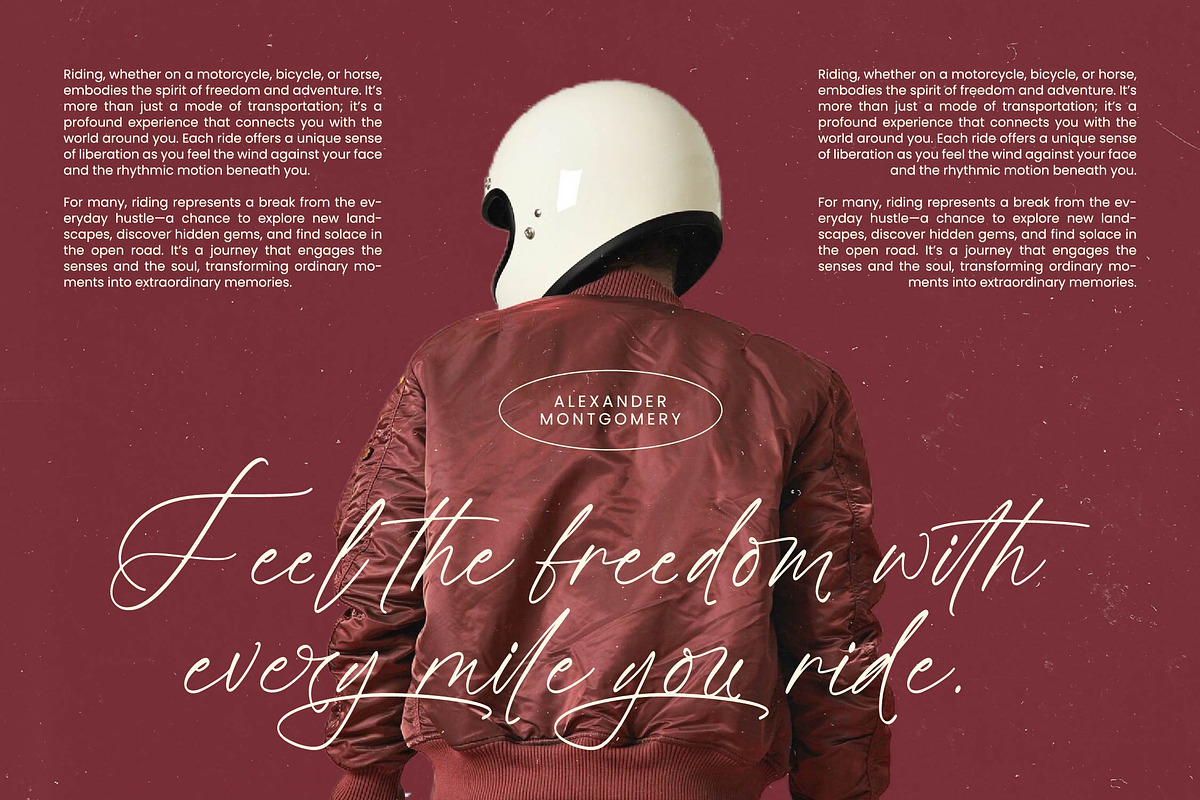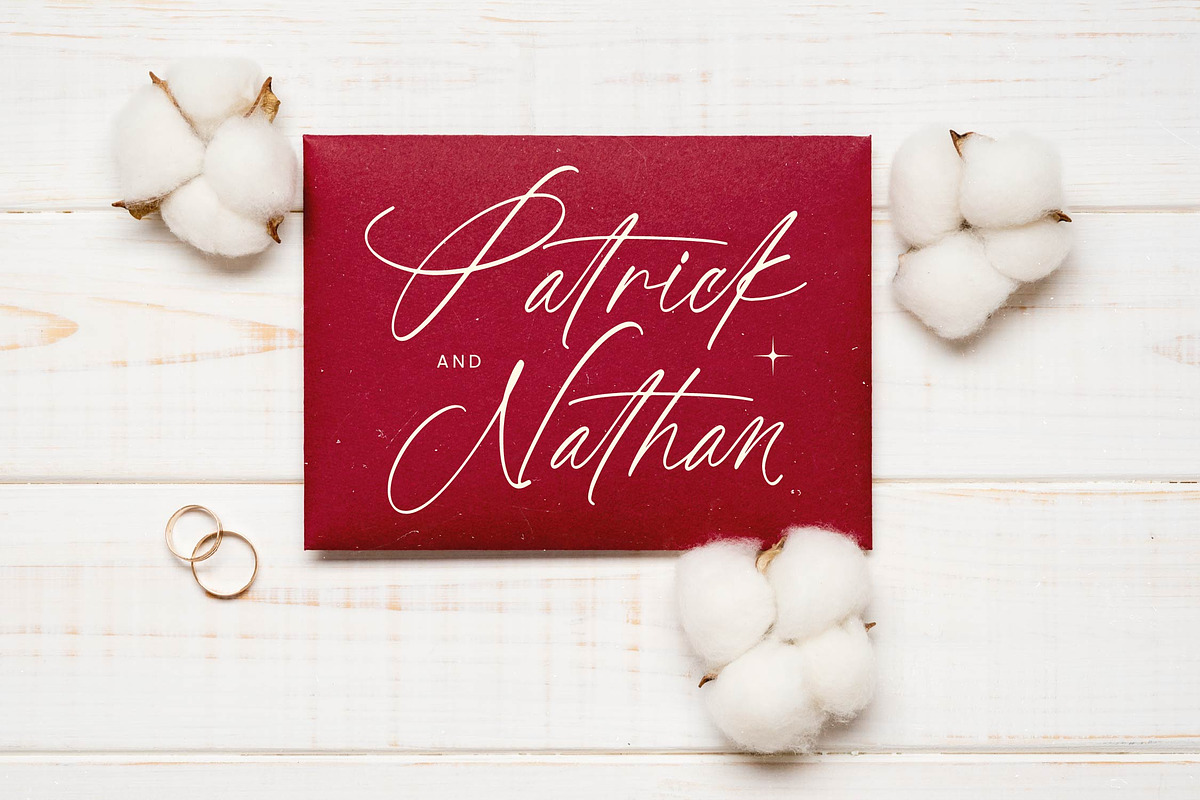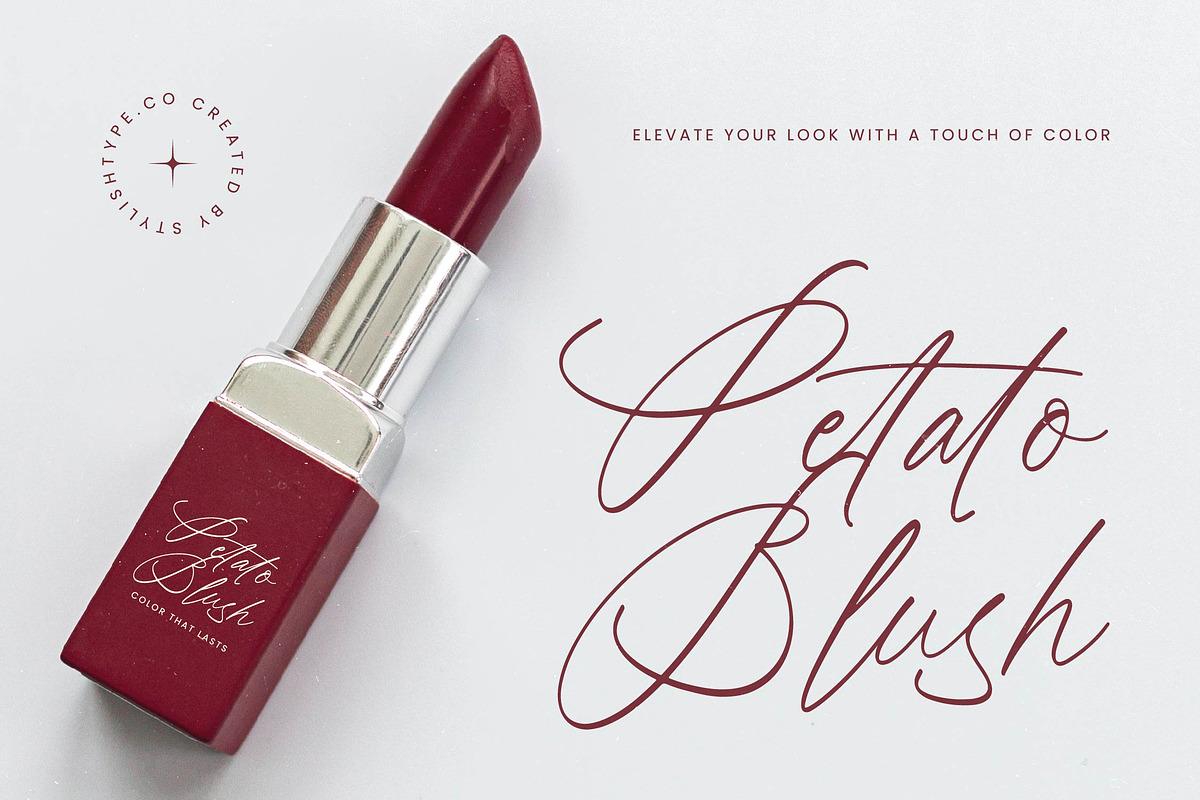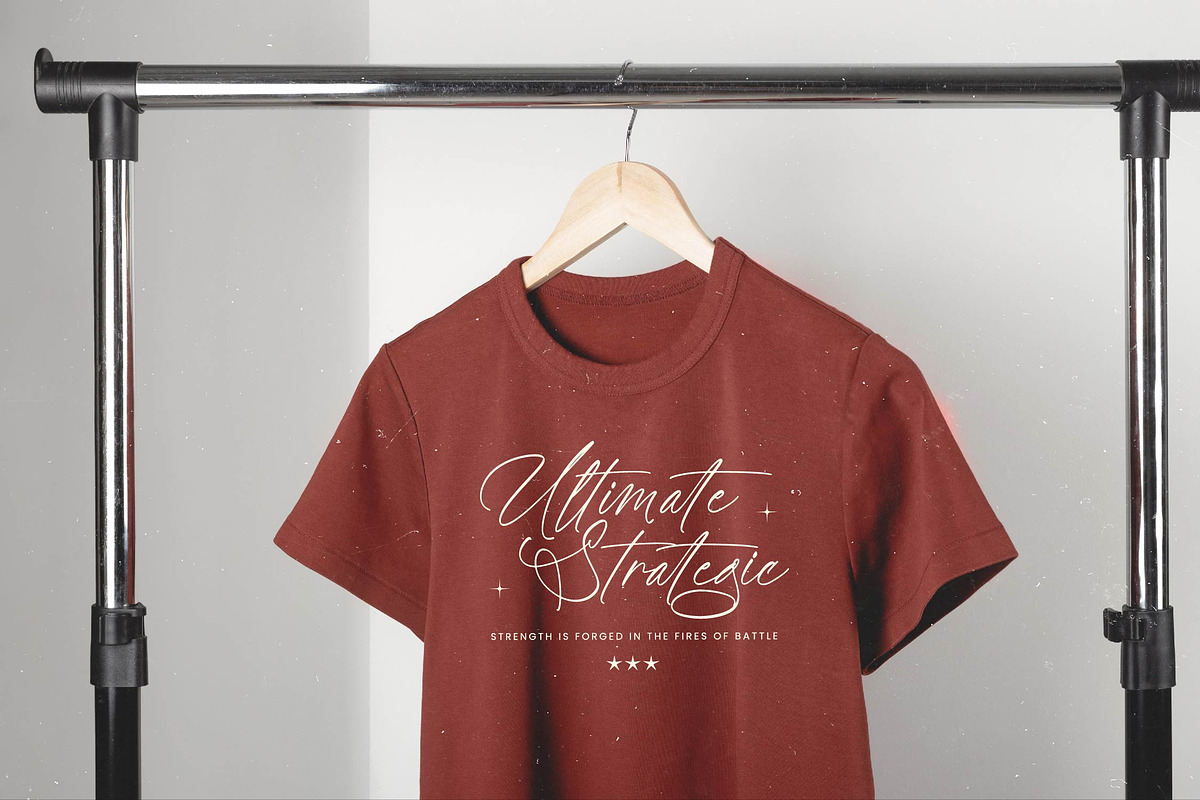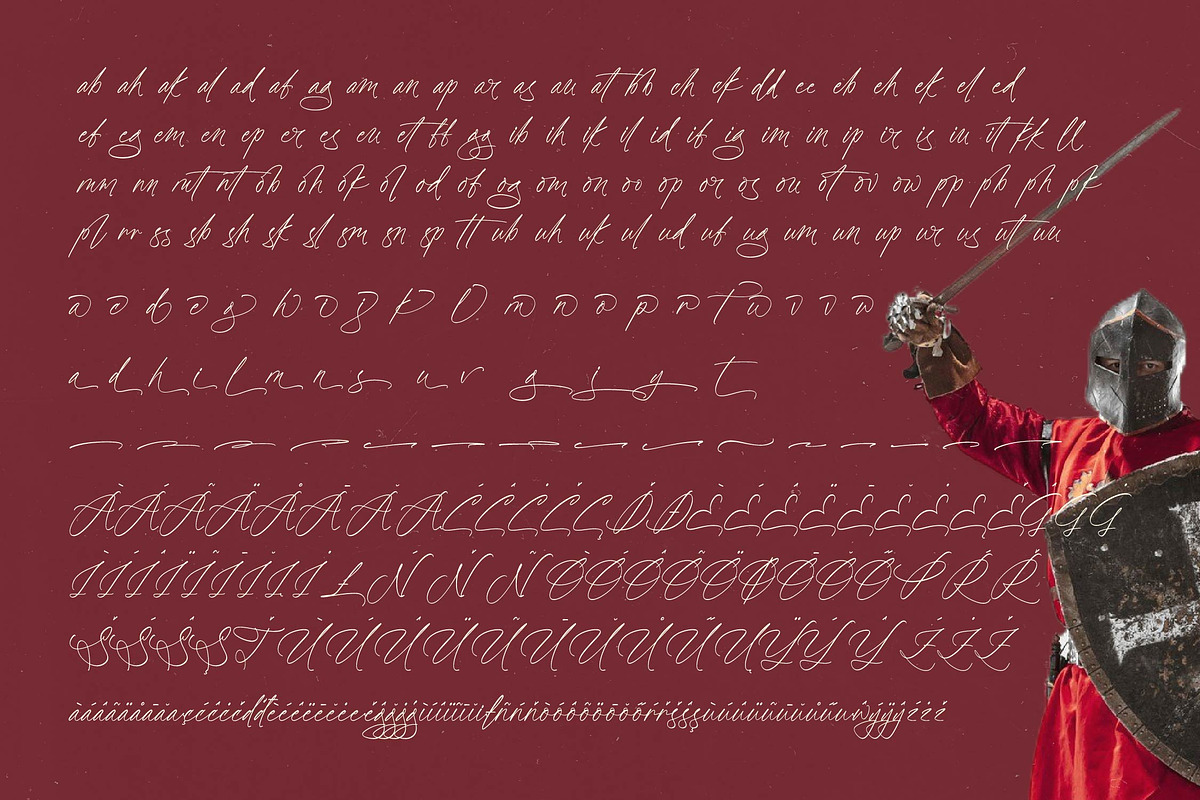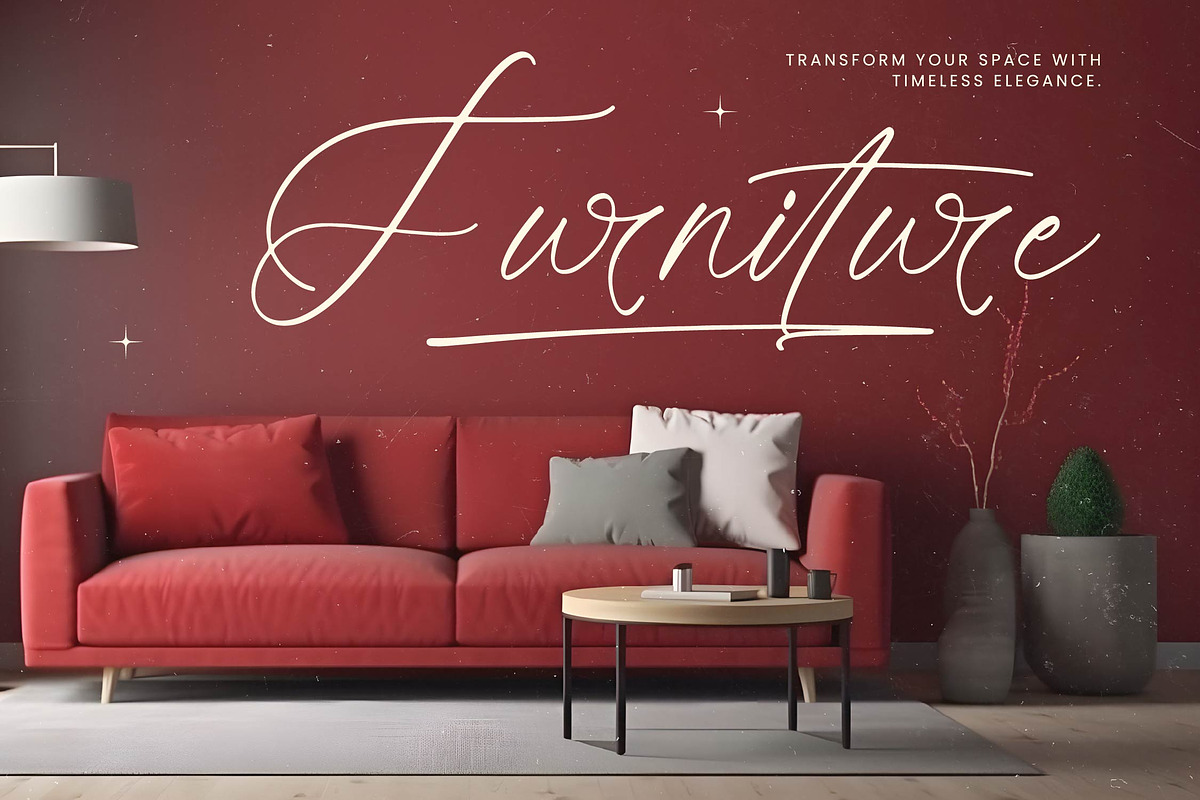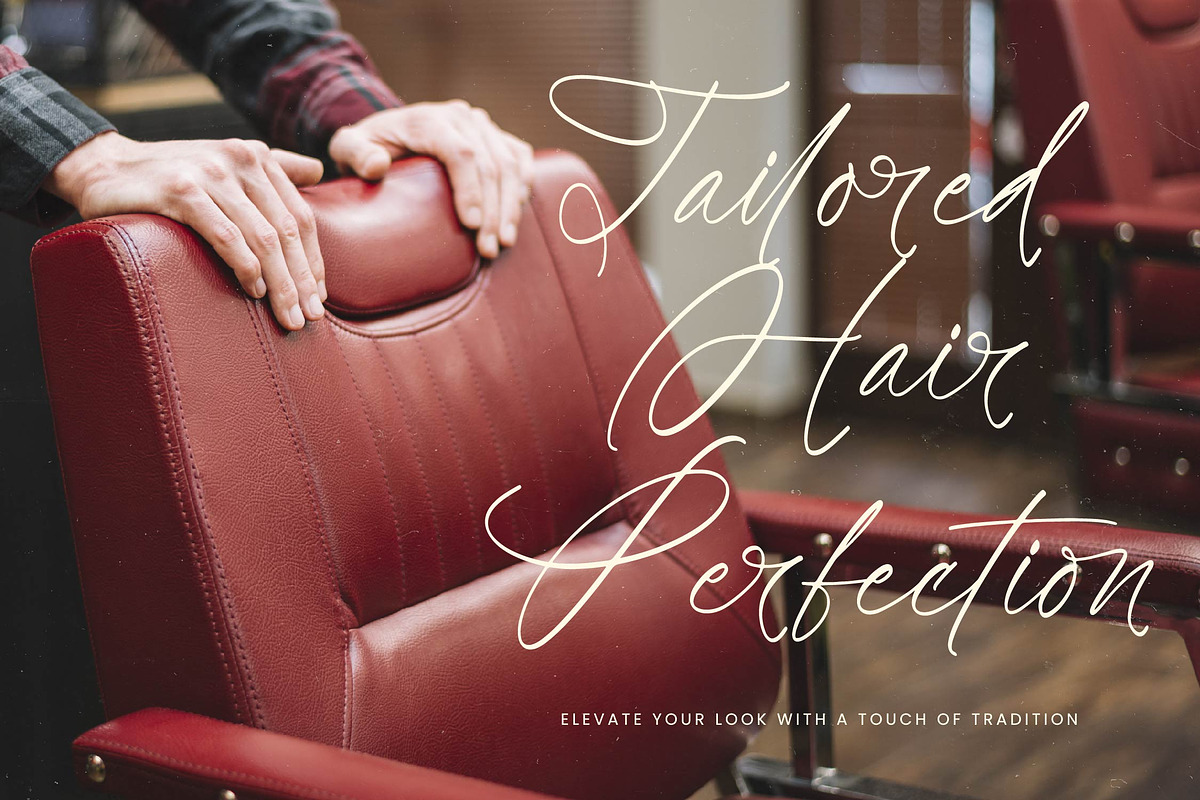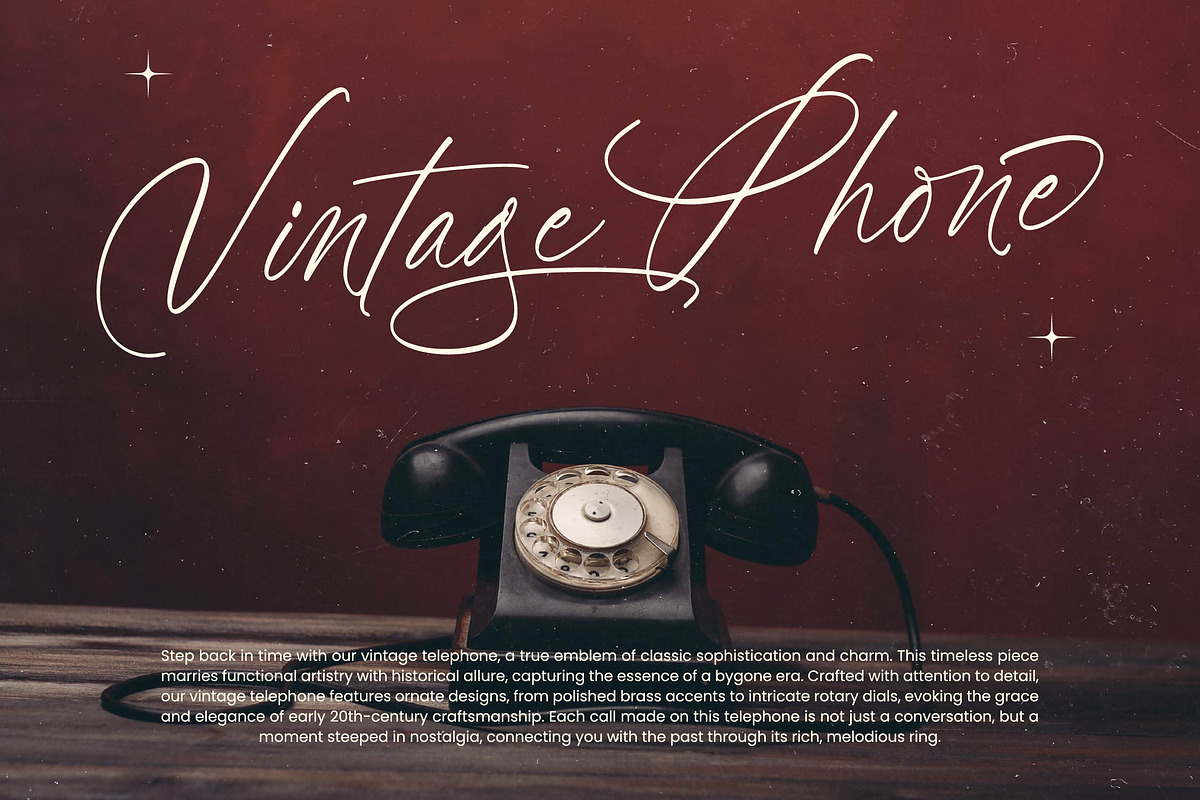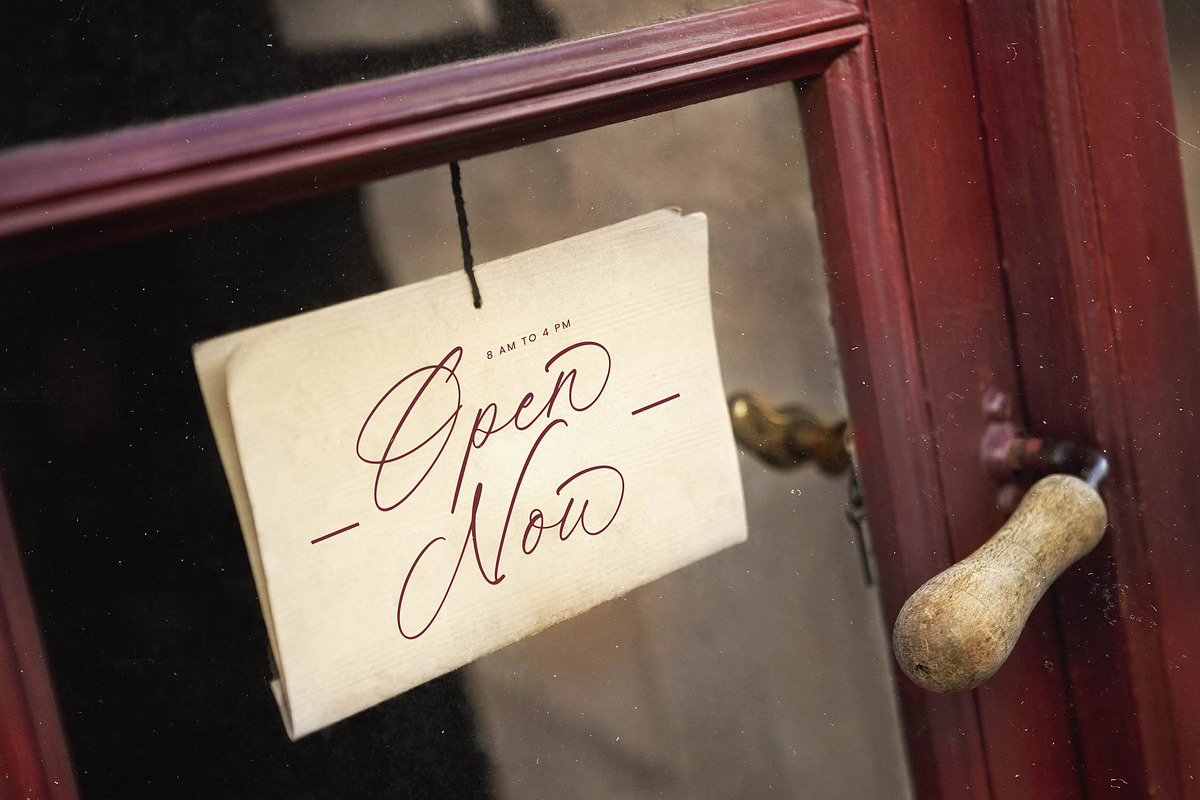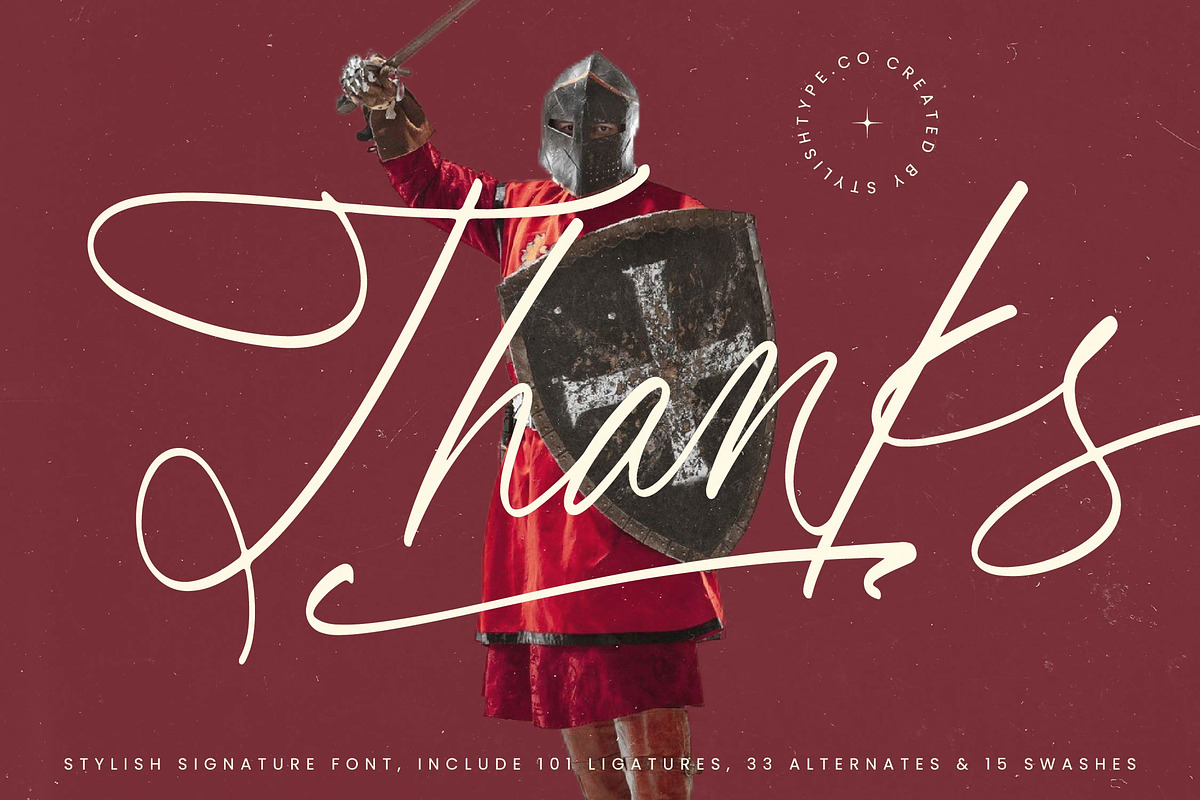
Battler Knight Stylish Signature
Battler Knight - Stylish Signature Font , from Stylishtype.Co , Suitable for any projects such as: logos, branding projects, homeware designs, product packaging, mugs, quotes, posters, shopping bags, t-shirts, book covers, name card, invitation cards, greeting cards, label, photography, watermark, special events, and all your other luxury and beautiful projects that need a Luxury Script taste.
- 101 Ligature 33 Alternates & 15 Swashes